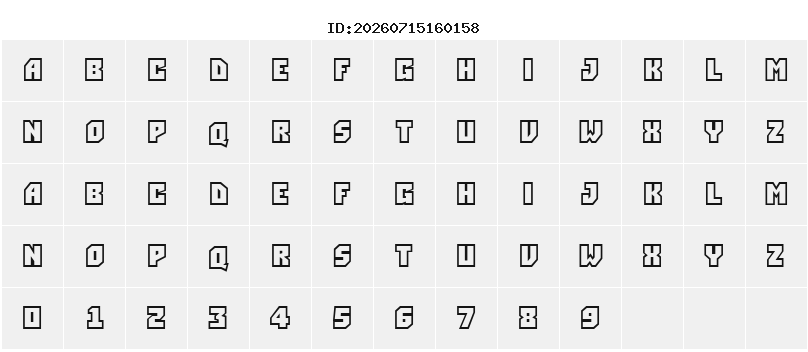
a_SimplerClg Preview
About a_SimplerClg.ttf
a_SimplerClg.ttf is a modern, elegant sans-serif font designed for ultimate readability and visual harmony. Perfect for branding, headlines, web design, and print materials.